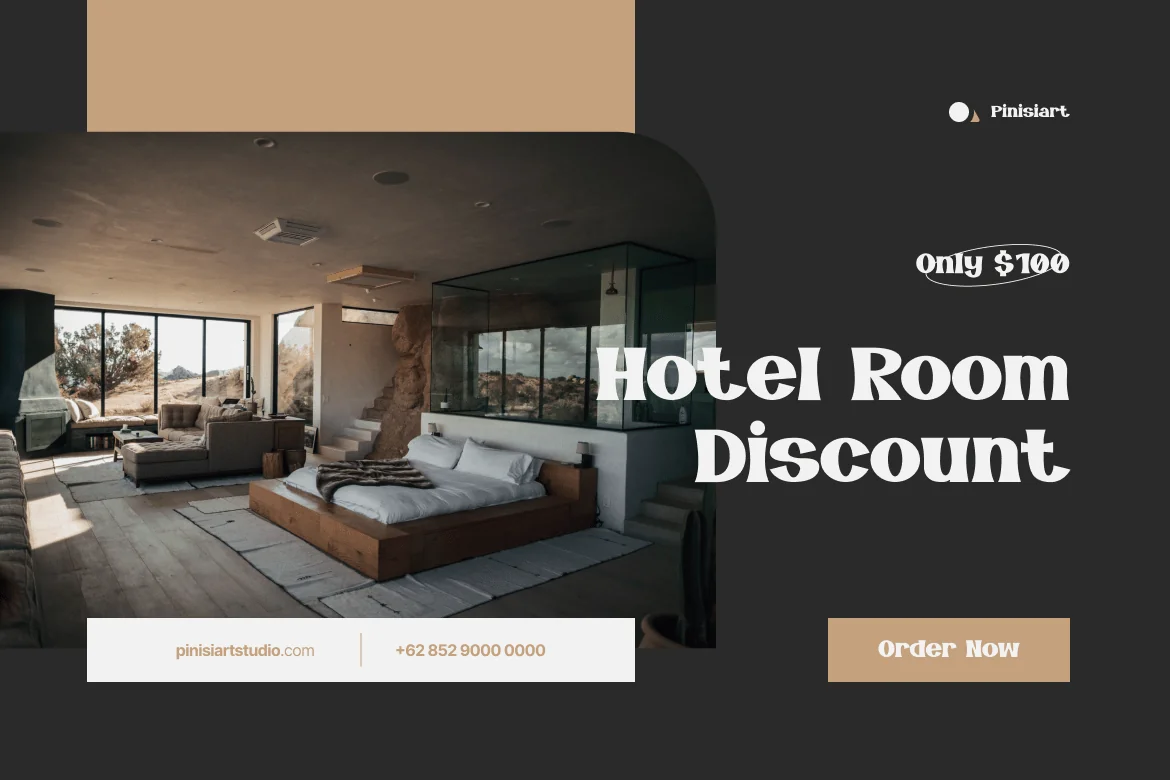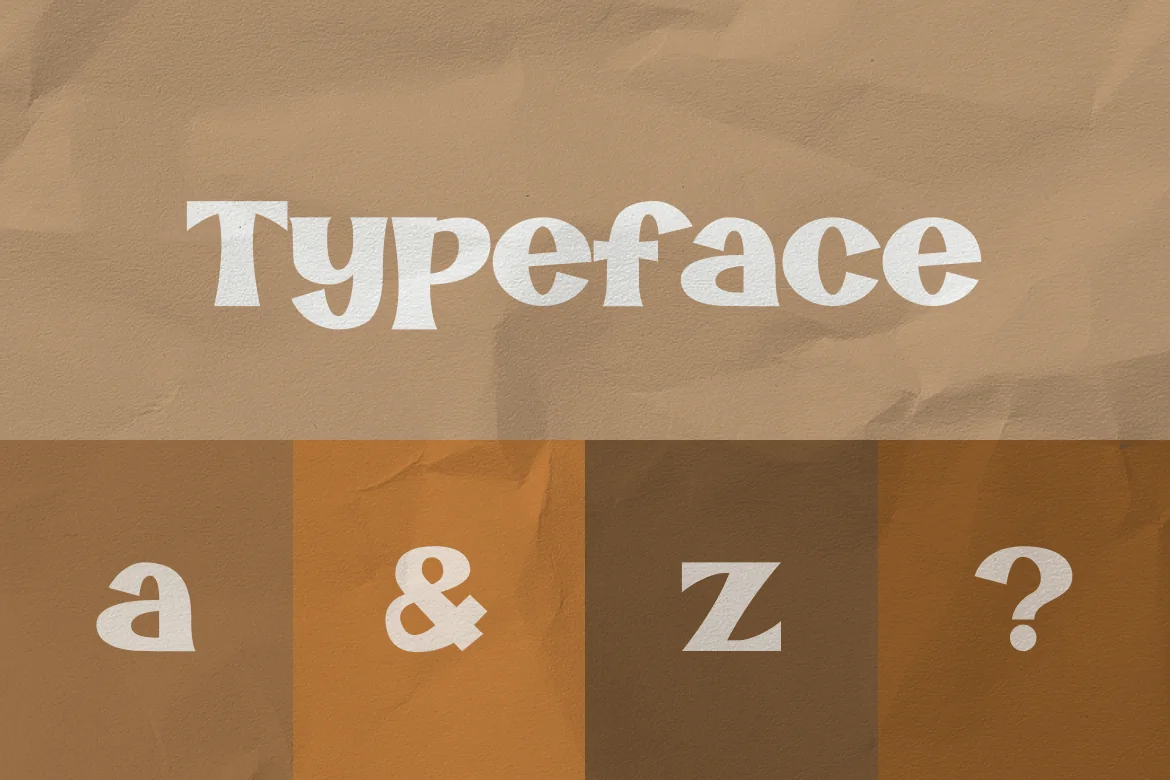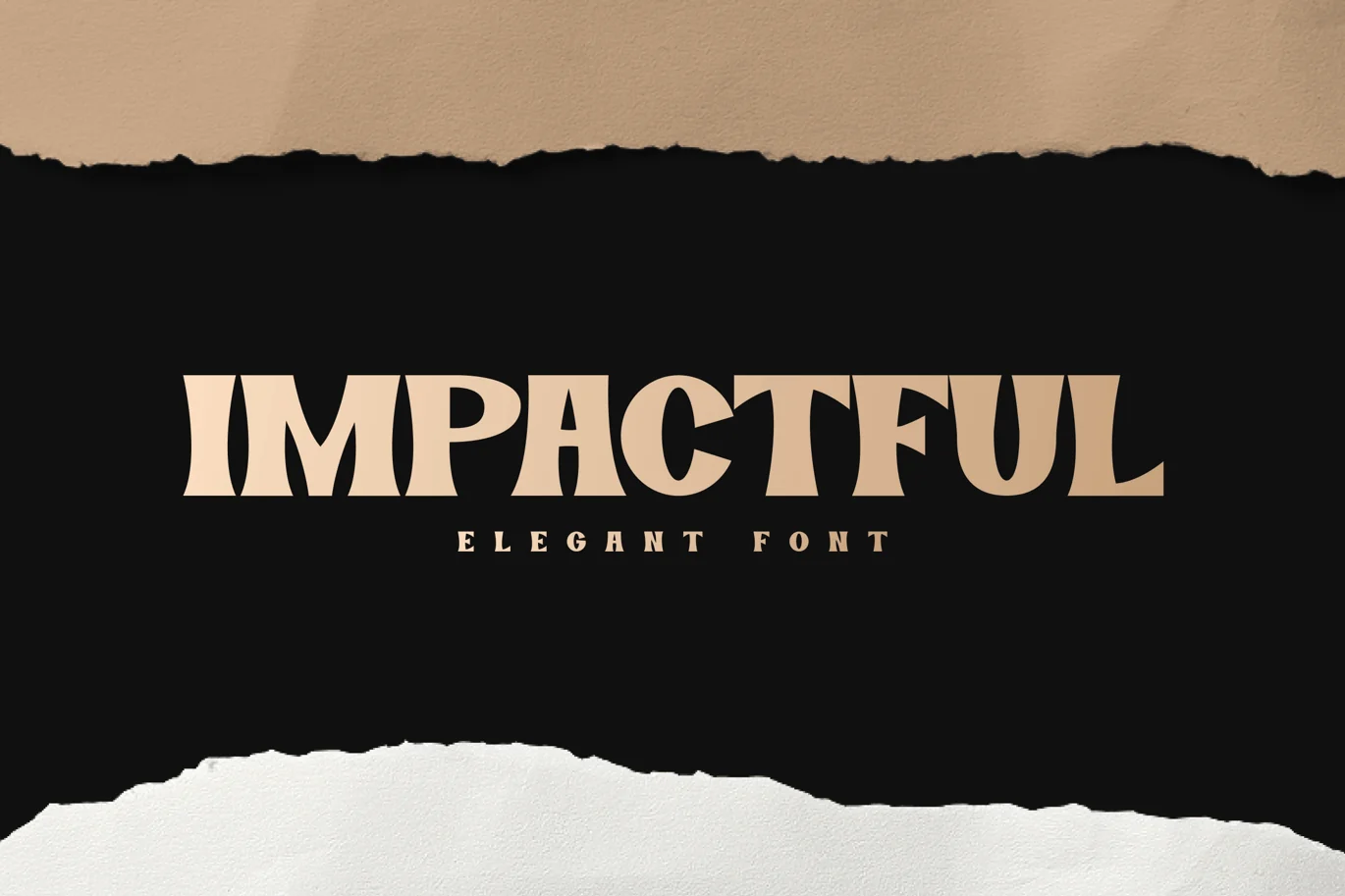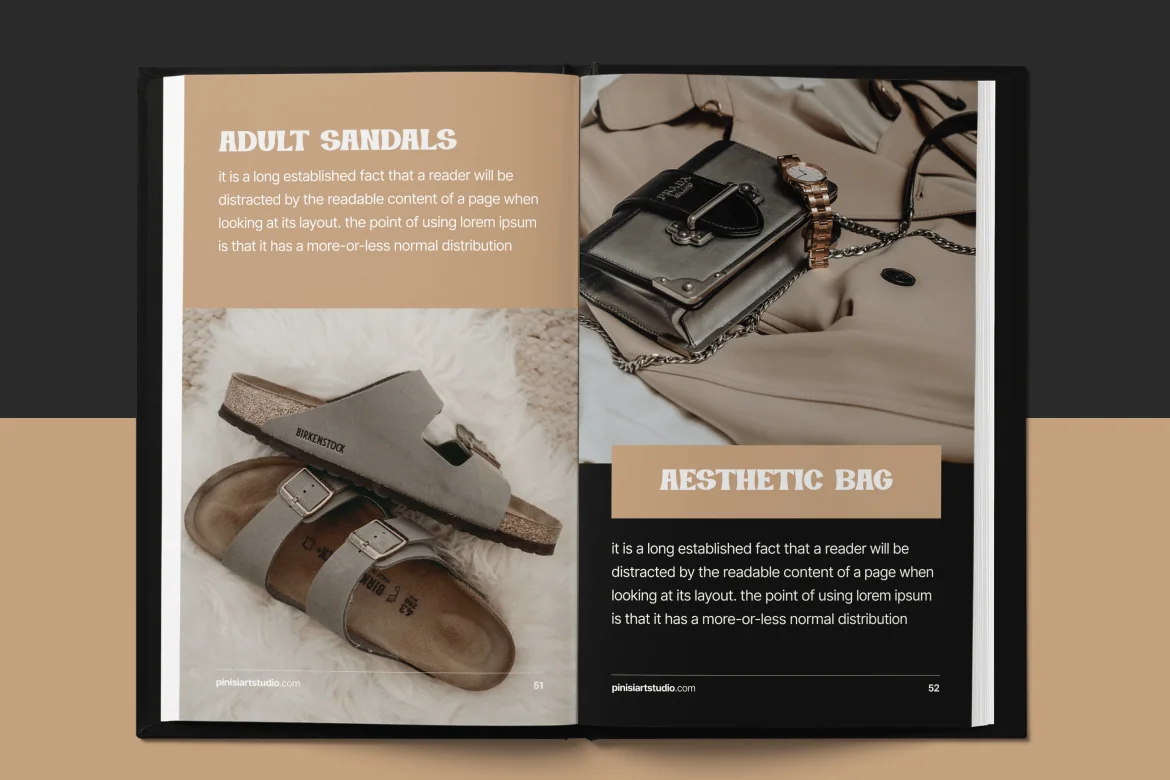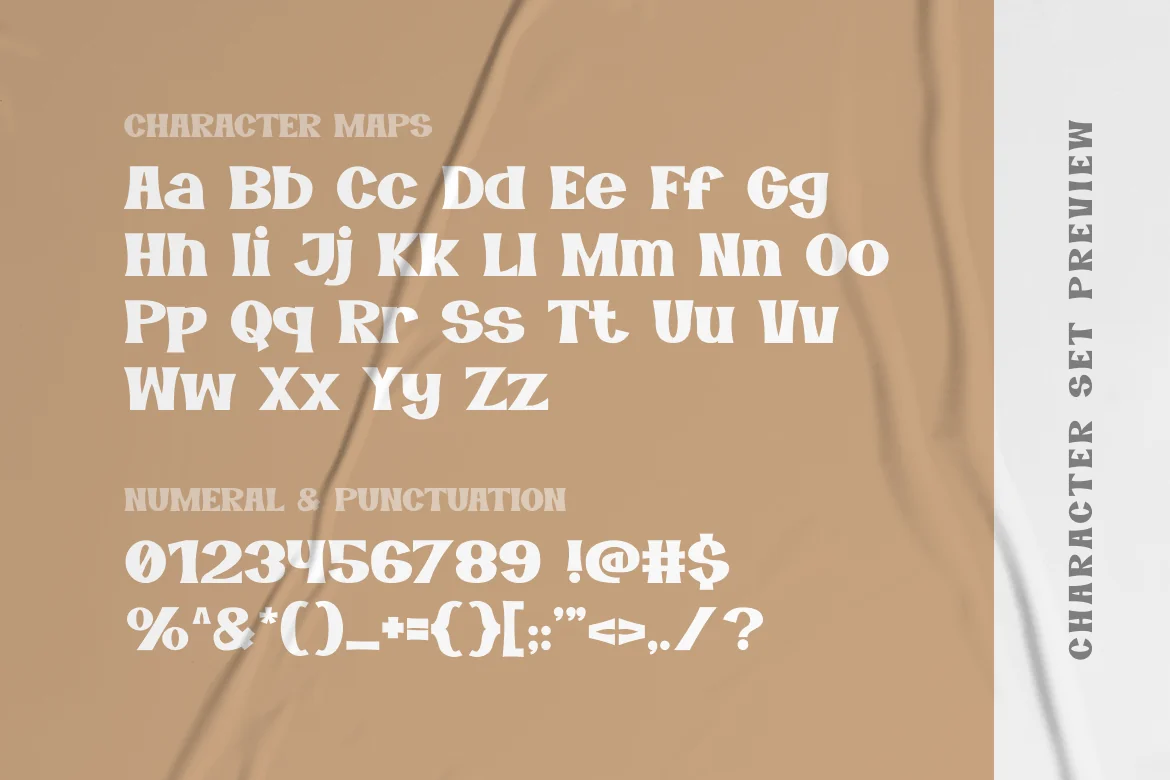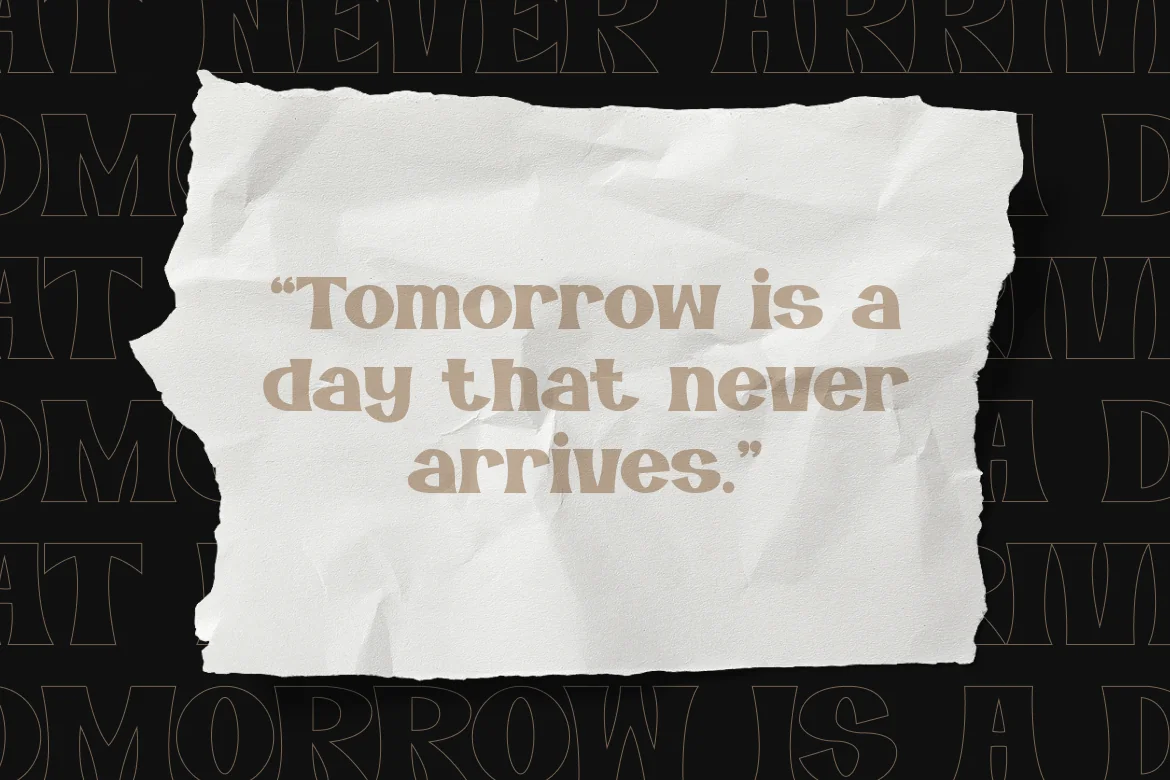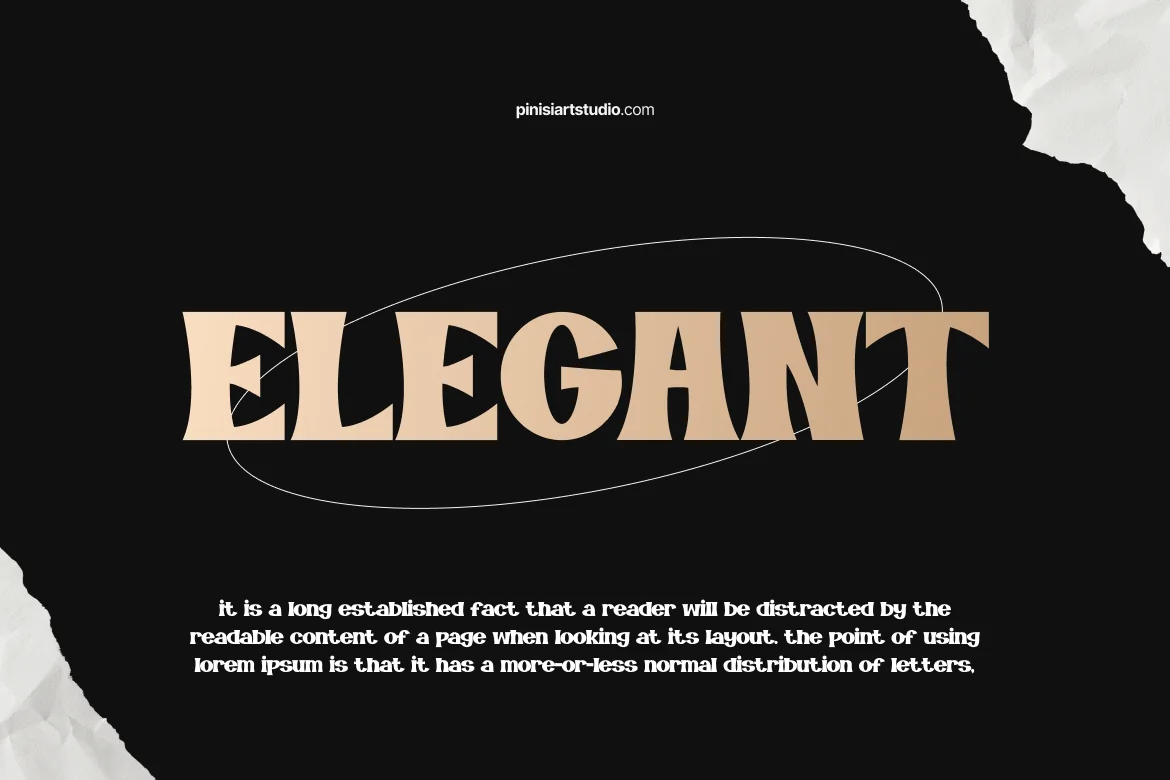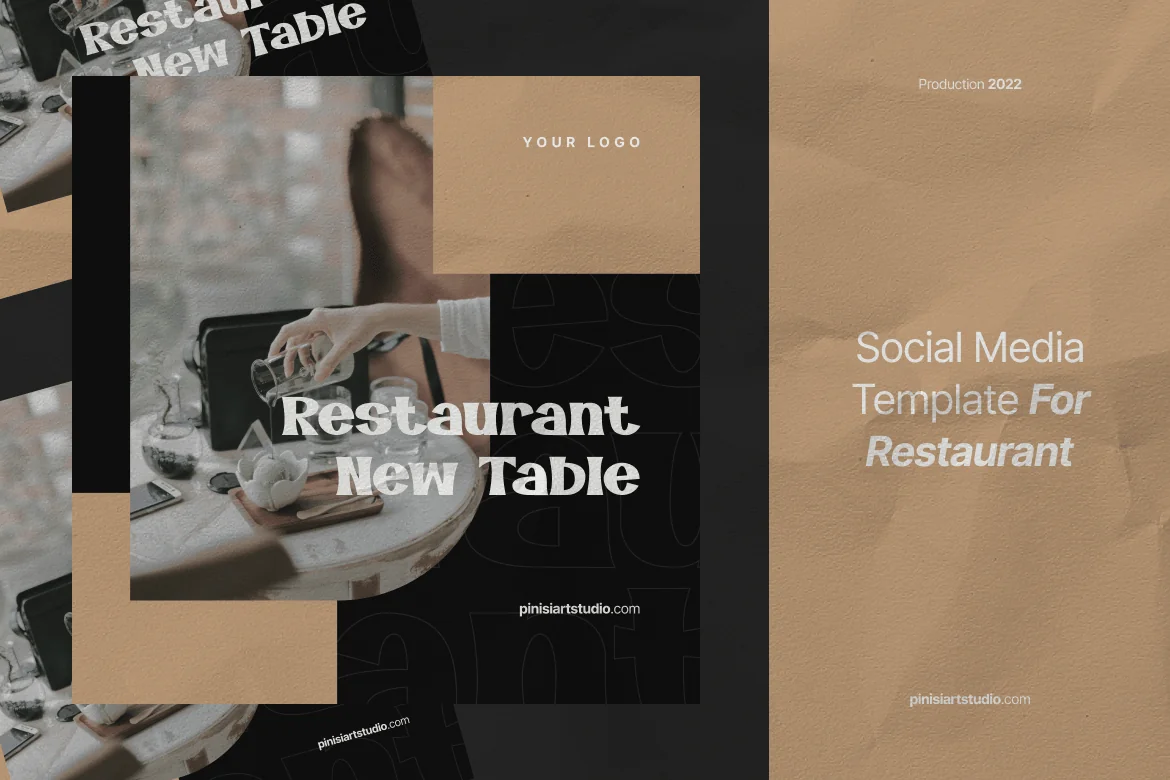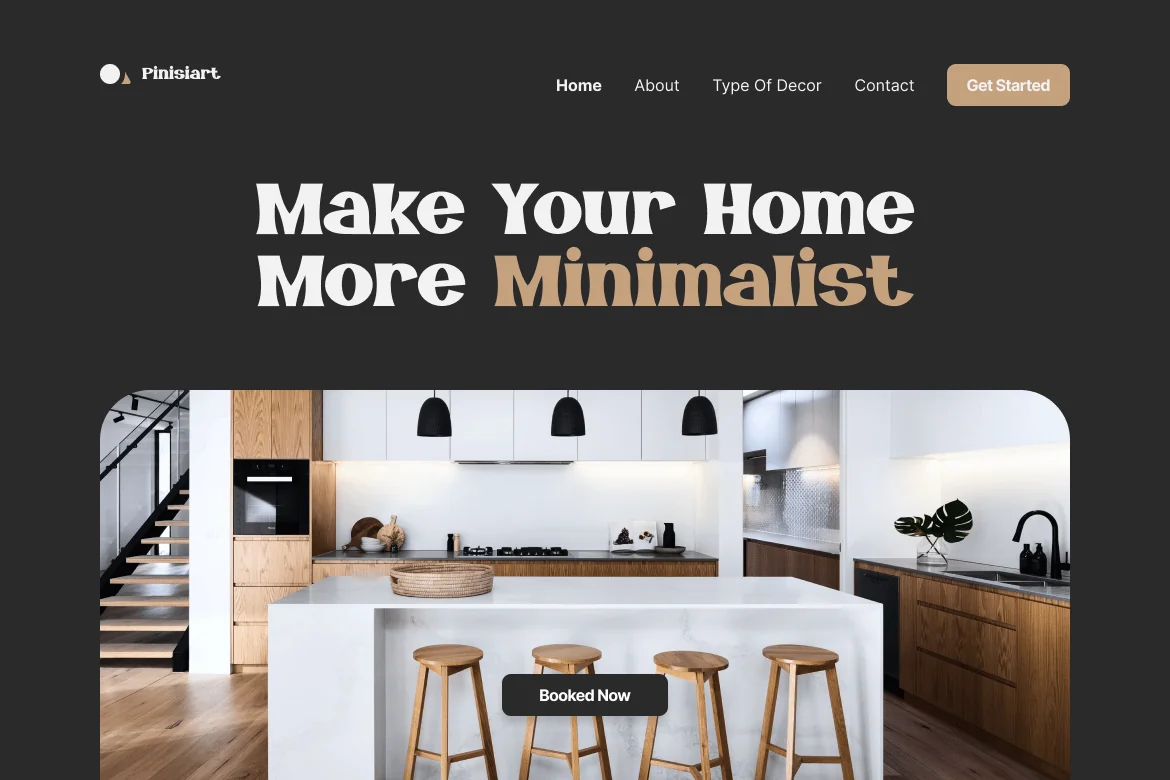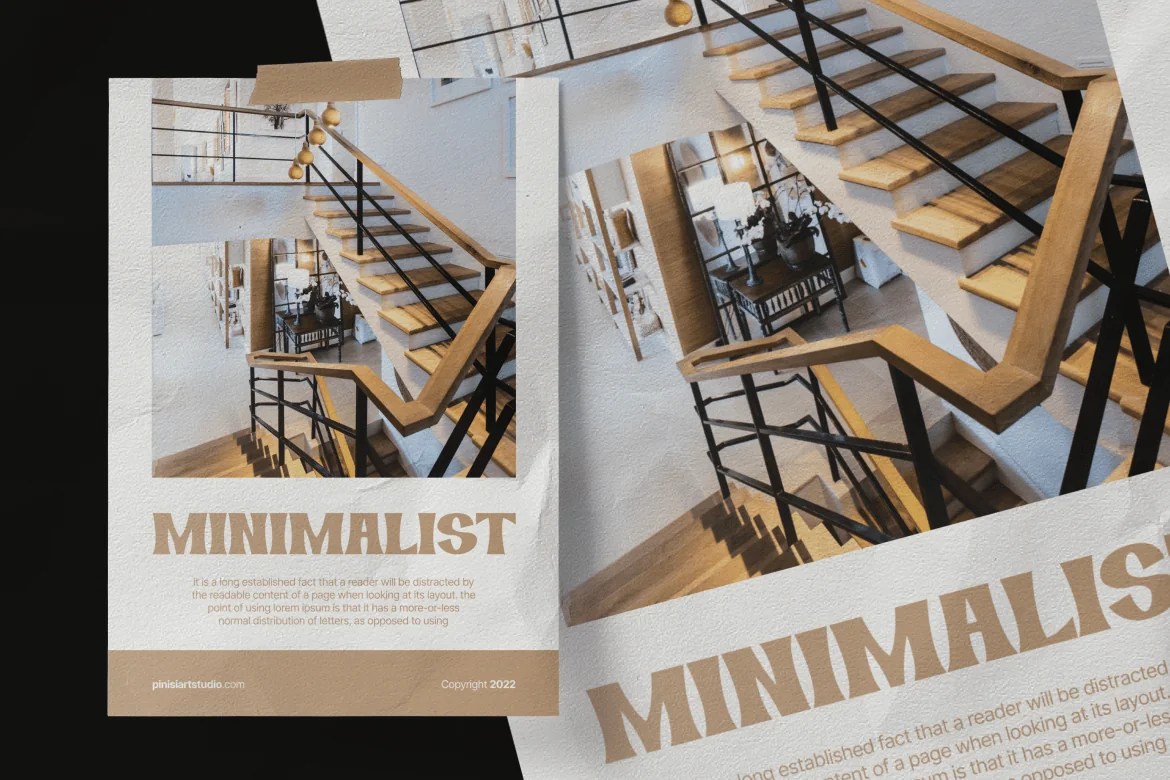
IMPACTFUL – Elegant Font
An elegant bold sans-serif font that will emphasize anything it is written, in a sort of formal way.
Suit perfectly for mature and provocative and encouraging themes books market, economic poster, stationary, school supplies font, youtube covers, youtube thumbnails, social media page covers and so on…